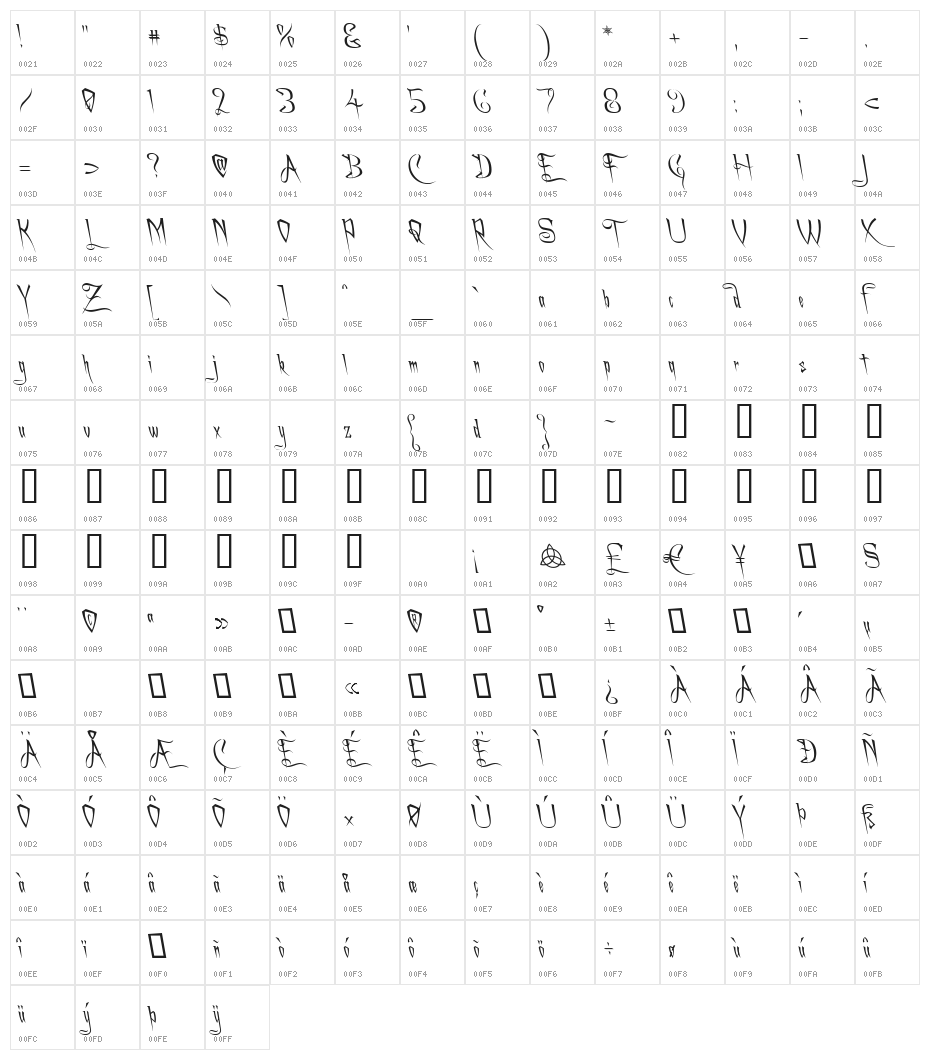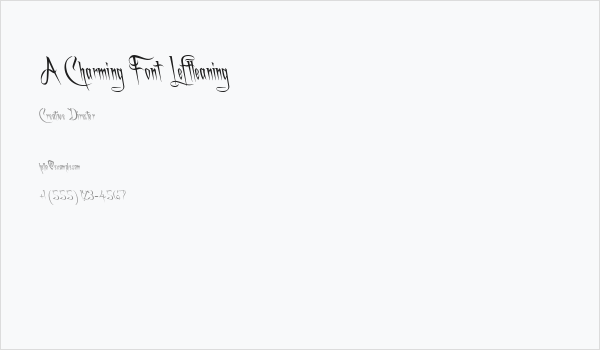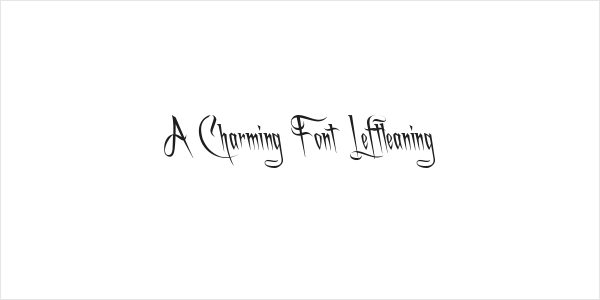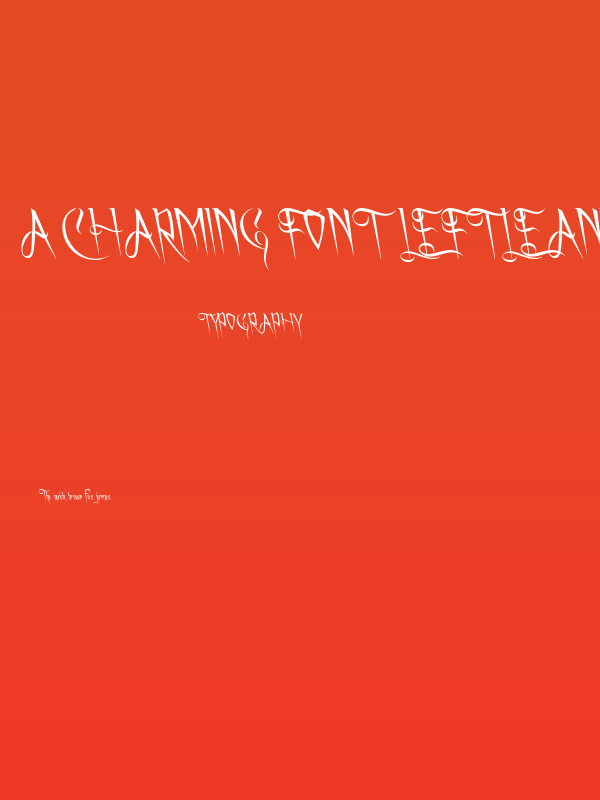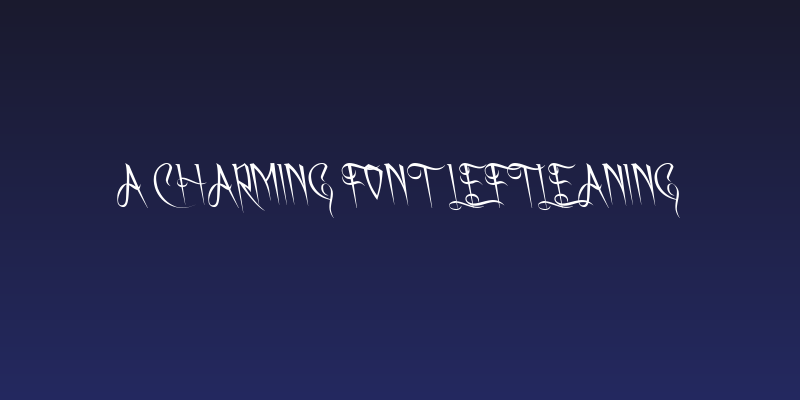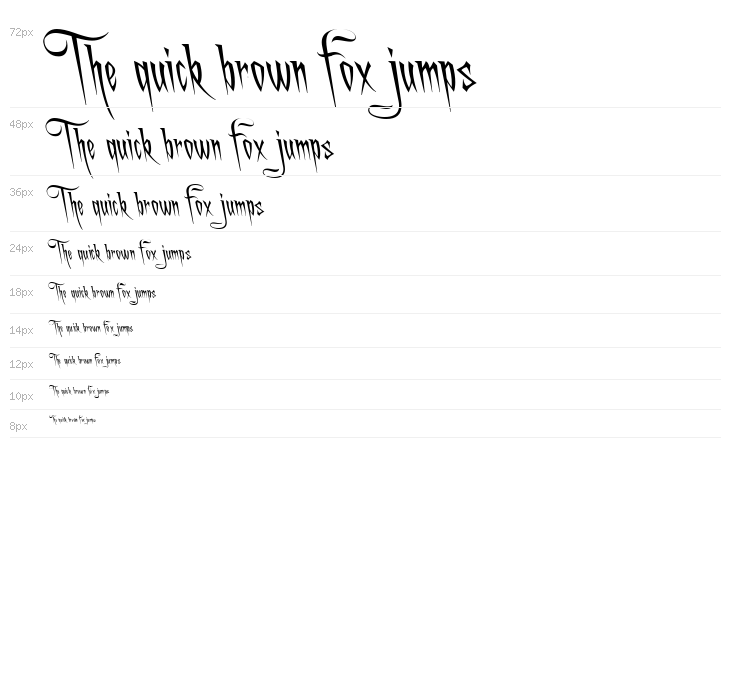
A Charming Font Leftleaning Font
A Charming Font Leftleaning Description
This font features a unique and artistic style with a left-leaning orientation, characterized by elongated and exaggerated strokes. The uppercase letters are particularly ornate, with swirling lines and pointed serifs that give a dramatic flair. The lowercase letters maintain a consistent style, though they are slightly more restrained, providing a balance between readability and decorative appeal. The numerals and special characters continue this theme, with a mix of sharp angles and flowing curves. This font's distinctive style makes it suitable for creative and eye-catching designs.
| Proposed Projects | Ideal for tattoo designs, album covers, posters, and other creative projects that require a bold, artistic touch. |